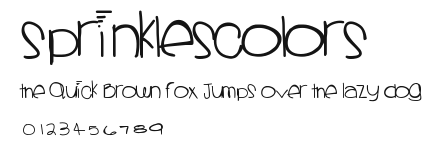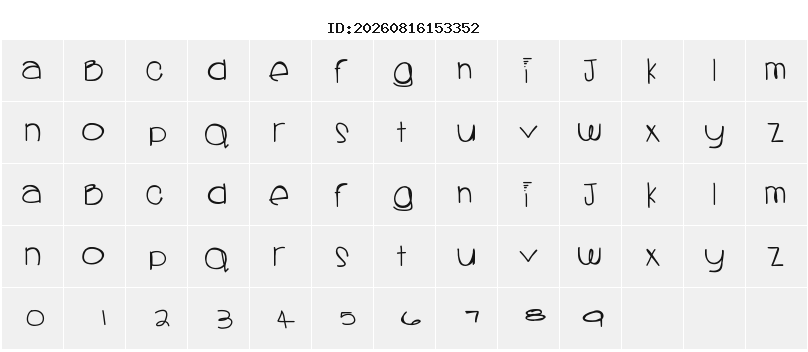
About Sprinklescolors.ttf
Sprinklescolors.ttf is a modern, elegant sans-serif font designed for ultimate readability and visual harmony. Perfect for branding, headlines, web design, and print materials.